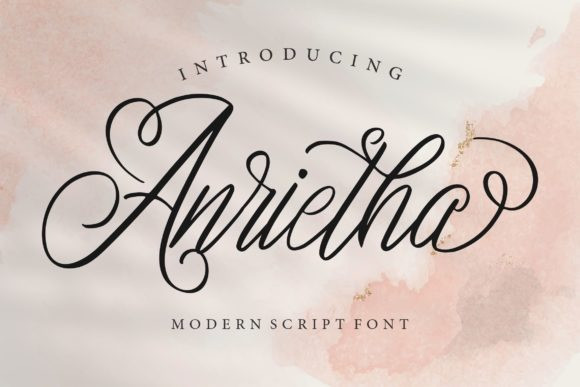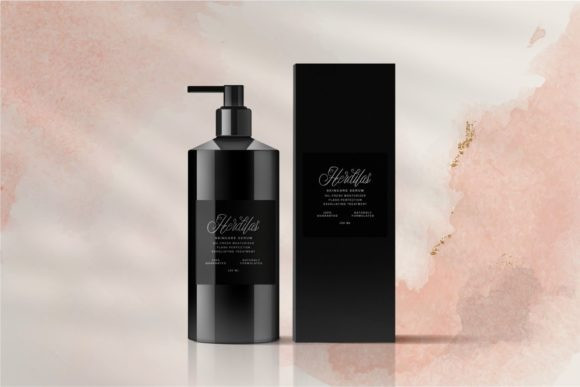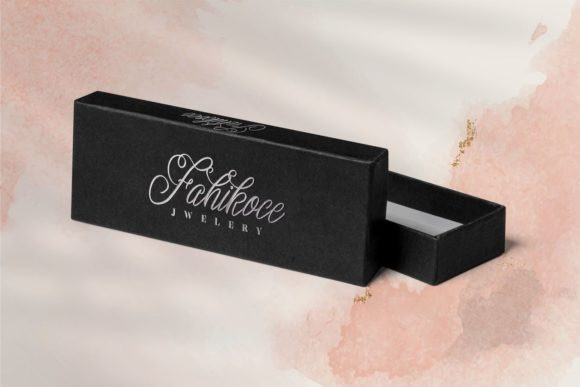
Anrietha Font
Anrietha is a chic, refined script font that emanates sophistication and elegance. Its stylish alternates and ligatures make this font the perfect match for any project.